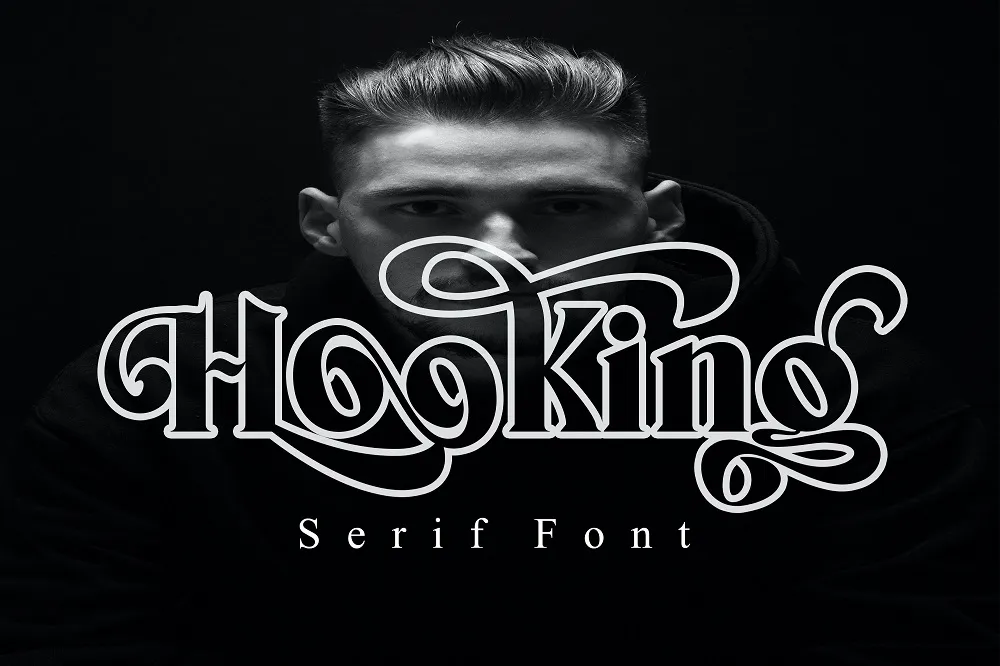
Hooking Font is a classic elegant and glorious style serif font that has the feature of connecting letters and many variations to make it looks nice. New elegant serif font that you can use to make your designs look more luxurious and classy. This font is very much adaptable and can be used in both large and small scales.